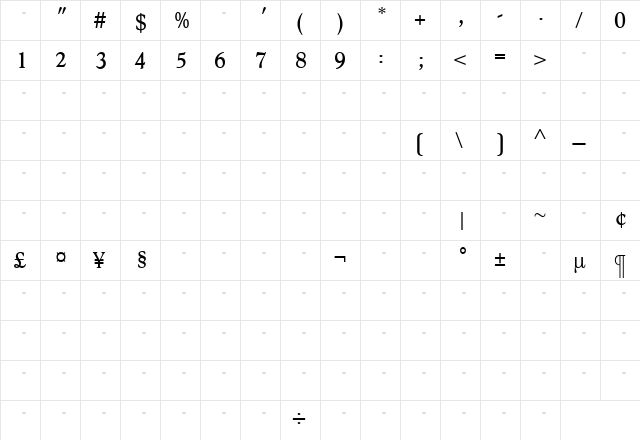
HessOSTab Regular
Design Context for HessOSTab Typeface
HessOSTab takes a measured approach to typography — its balanced proportions and neutral character make it a reliable workhorse for both digital and print work.